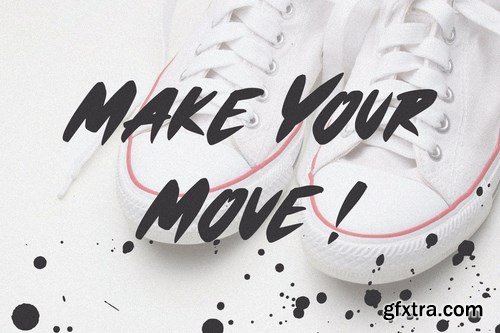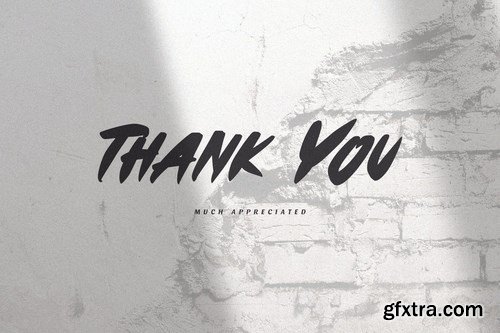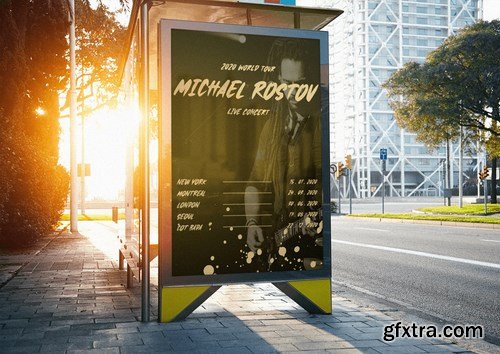
Veshoc - The Handbrushed Font
Veshoc - The Handbrushed Font. It comes with a brush texture style which is perfect to make any design stand out! This font is perfect for branding, wedding invites, magazines, mugs, business cards, quotes, posters, and more.